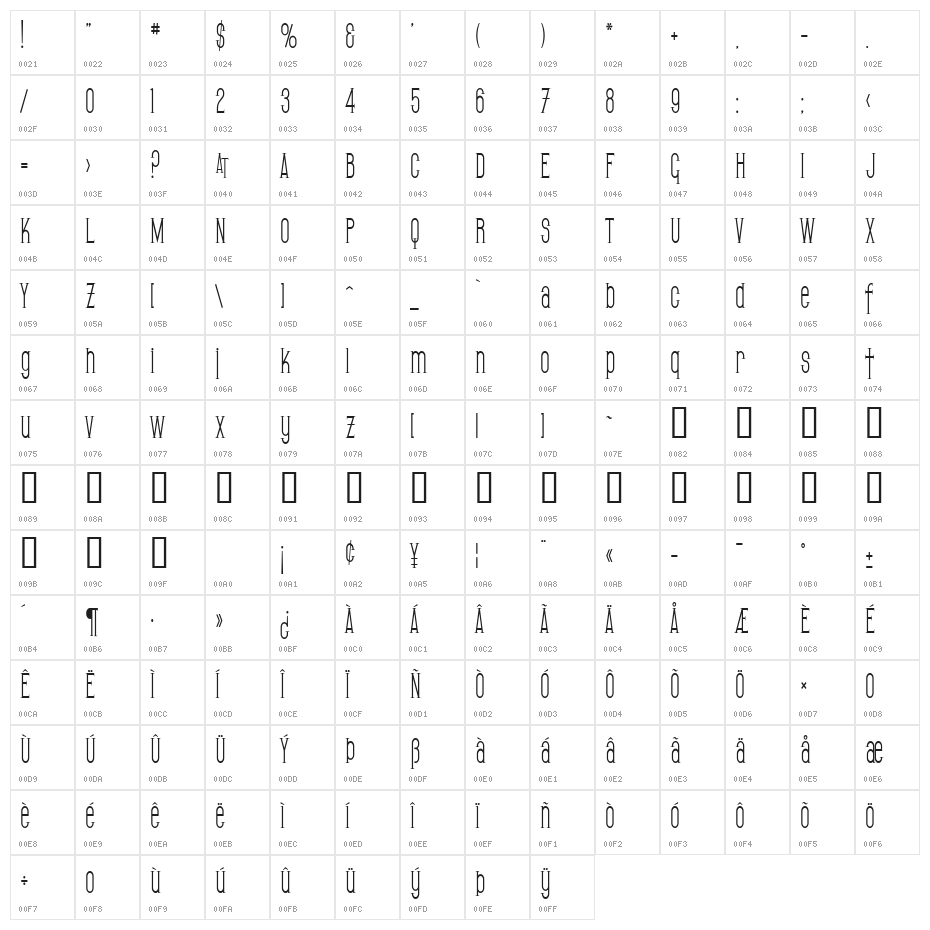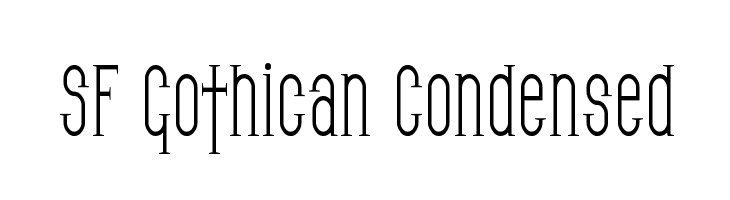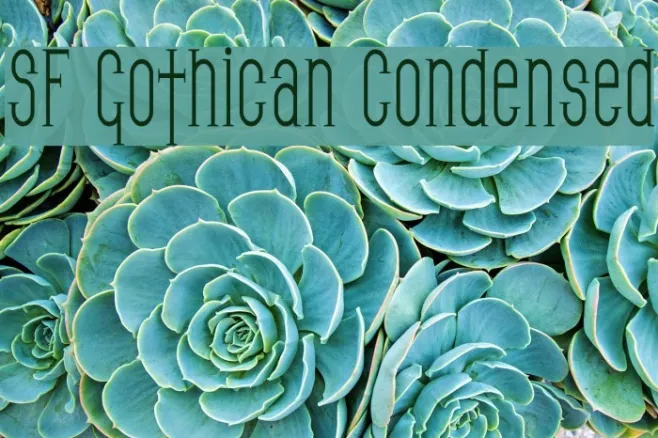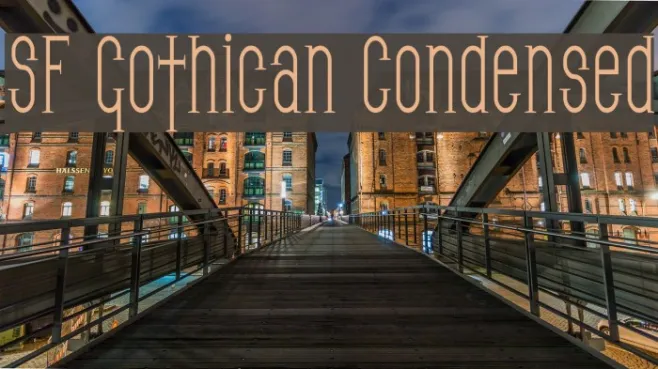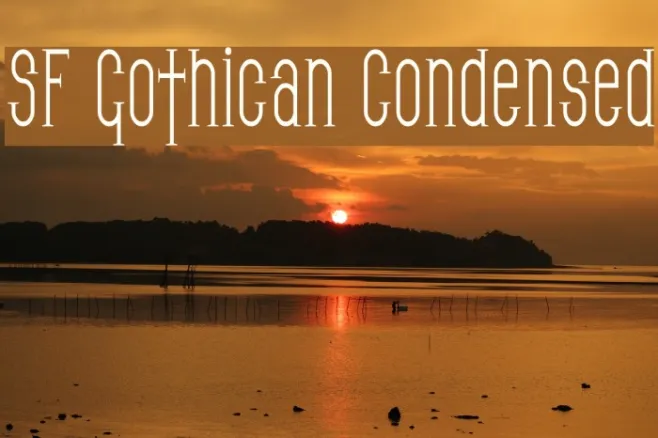
SF Gothican Condensed Font
SF Gothican Condensed Description
This font features a condensed and elongated design, characterized by its tall, narrow letterforms. The strokes are consistent in width, providing a uniform appearance across all characters. The uppercase letters are particularly striking, with a modern and sleek aesthetic that is both elegant and bold. The lowercase letters maintain the same condensed style, ensuring readability while preserving the unique character of the font. Numbers and special characters are designed to match the overall style, offering a cohesive look. This font is ideal for creating a strong visual impact in design projects.
| Proposed Projects | Ideal for headlines, posters, branding, and any design requiring a strong visual impact. |